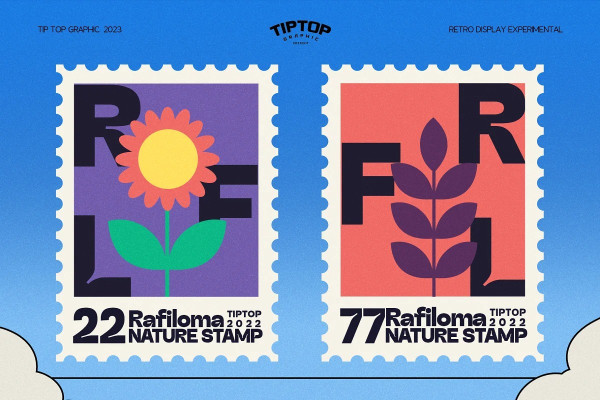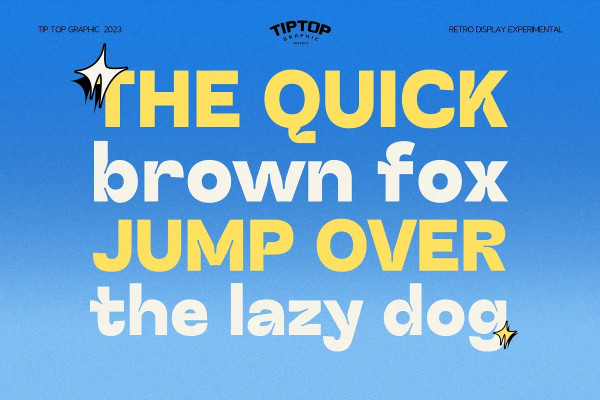
Rafiloma Font
Rafiloma Font is a typeface that encapsulates the spirit of nostalgia while pushing the boundaries of design innovation. This font harkens back to the clean lines, simplicity, and geometric shapes while introducing experimental sides that give it a fresh and contemporary appeal.